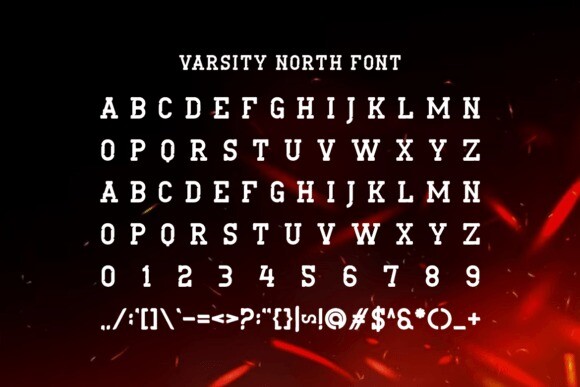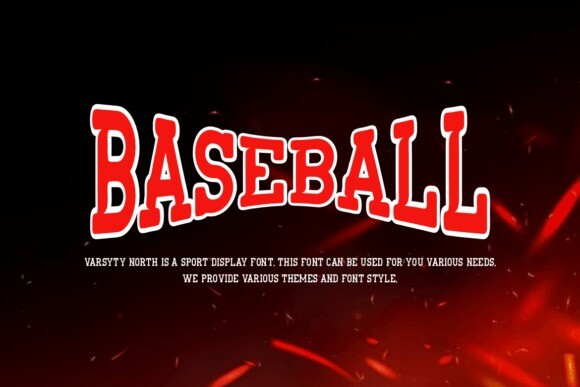
Varsity North Font
Designer: IqsiartStudio
Varsity North Font is a sporty font inspired by classic varsity and baseball uniforms. Its bold, blocky letters give a strong and athletic look, making it great for sports-themed designs or team logos.